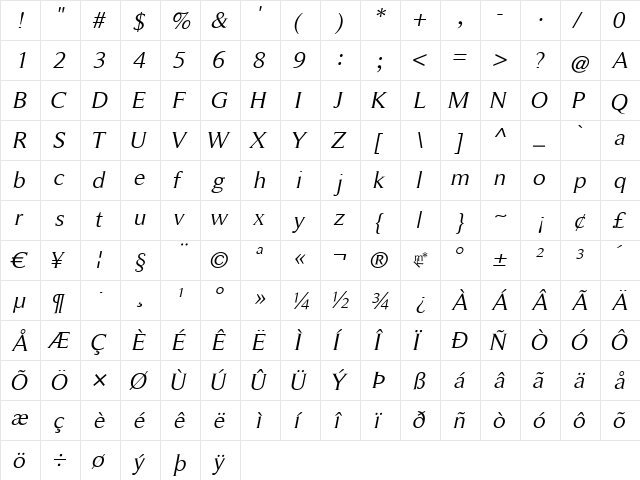
RomanSerif Medium Italic
Design Context for RomanSerif Typeface
RomanSerif brings classic typographic sensibility to the table — its serifs and measured letterforms reflect centuries of print heritage. The slanted form adds forward momentum and visual energy.
Pro Tip: Use RomanSerif for editorial body copy and considered headline work. Pair with a neutral sans for UI elements or captions to create a classic hierarchy.